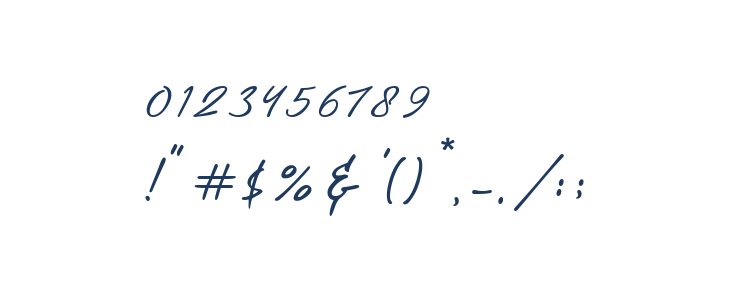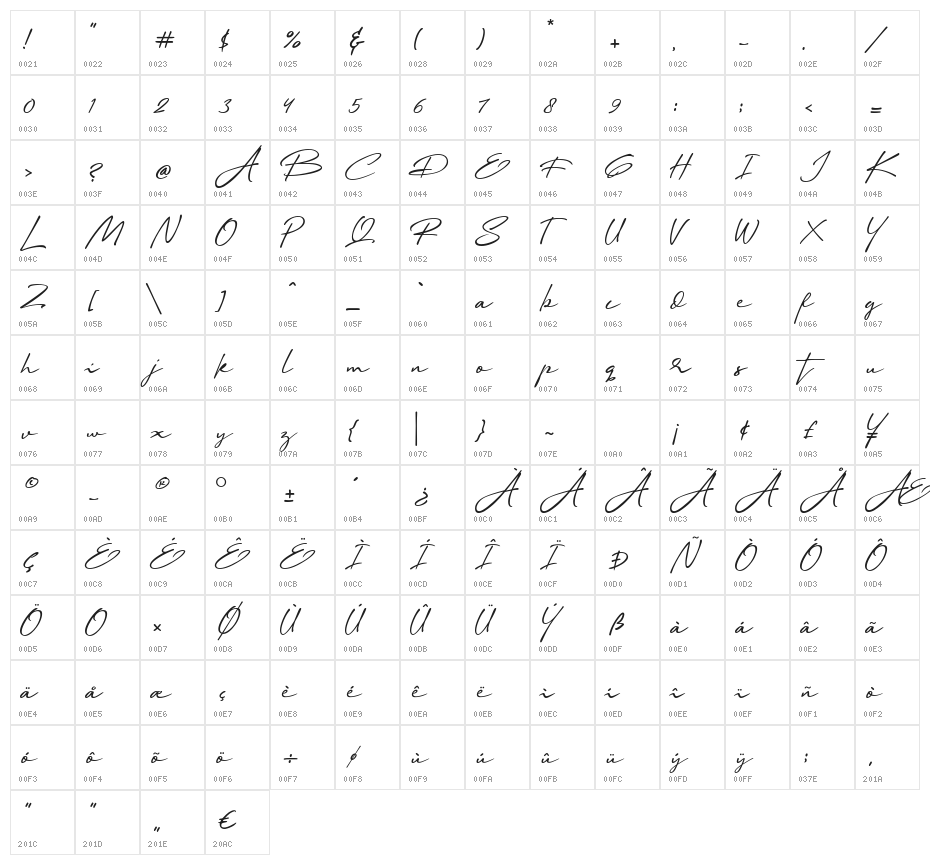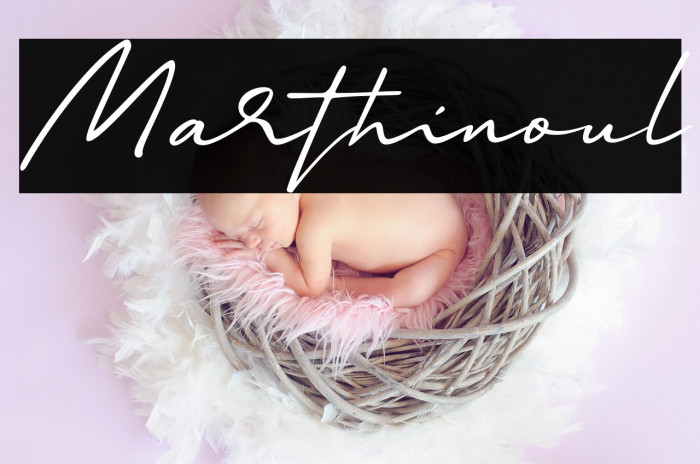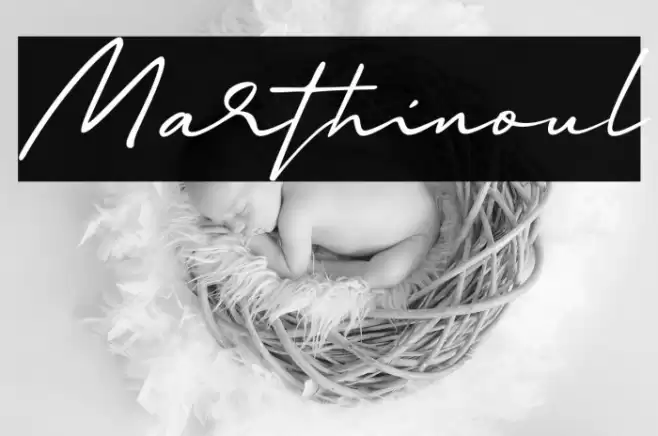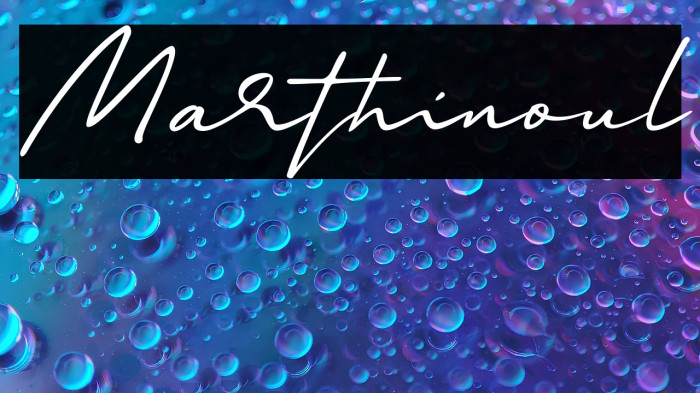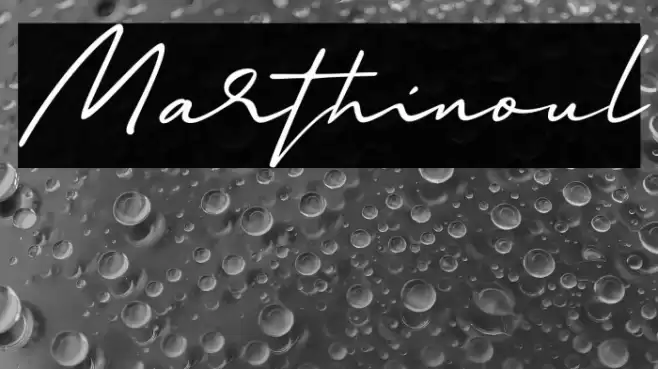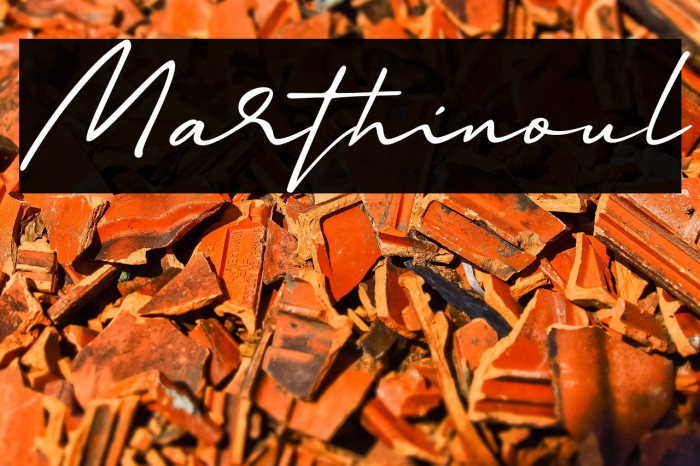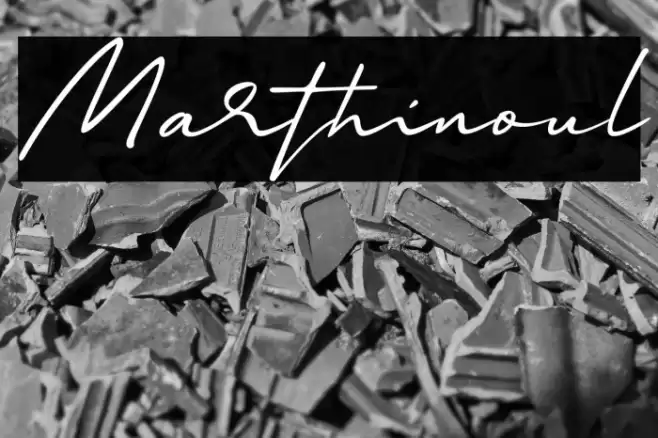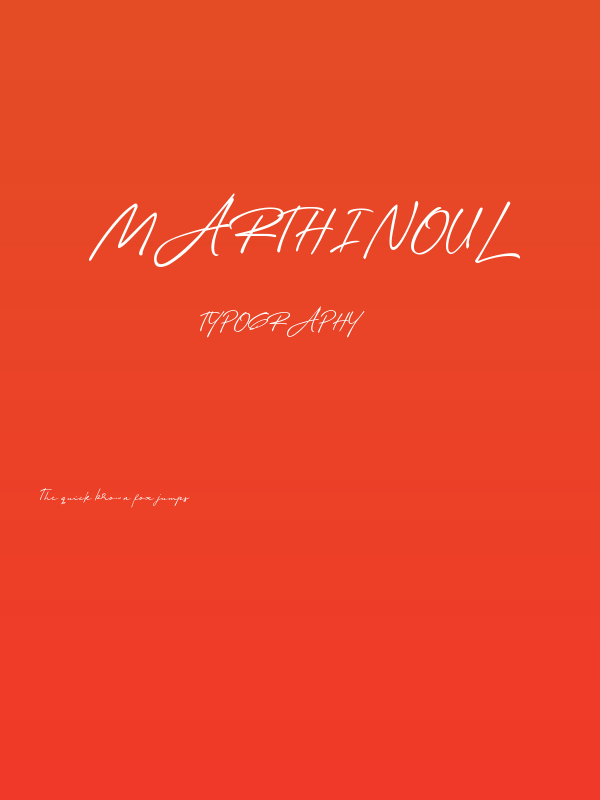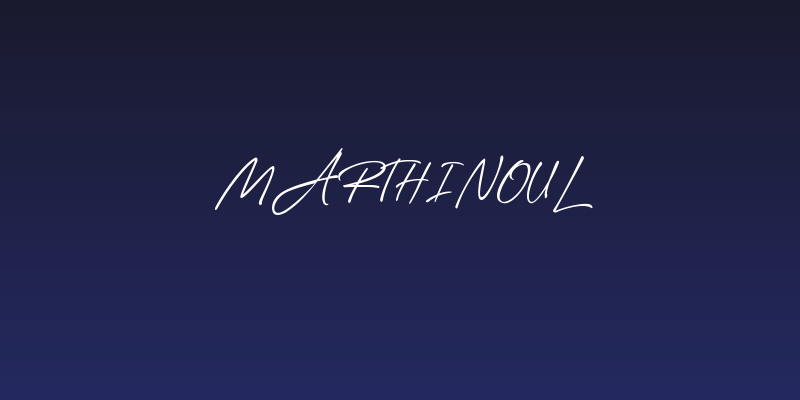
Marthinoul Font
Marthinoul Description
This font exudes a sense of elegance and fluidity, characterized by its cursive, handwritten style. The letters are connected, creating a seamless flow that mimics natural handwriting. The uppercase letters are bold and slightly slanted, while the lowercase letters maintain a consistent, smooth curve. Numbers and special characters are crafted with the same attention to detail, ensuring uniformity across all elements. The overall appearance is sophisticated and artistic, making it suitable for projects that require a personal touch.
Overall StyleElegant, Artistic
Use CaseLogos, Invitations, Artistic projects
Proposed ProjectsIdeal for wedding invitations, personal branding, greeting cards, and artistic projects that require a touch of elegance.